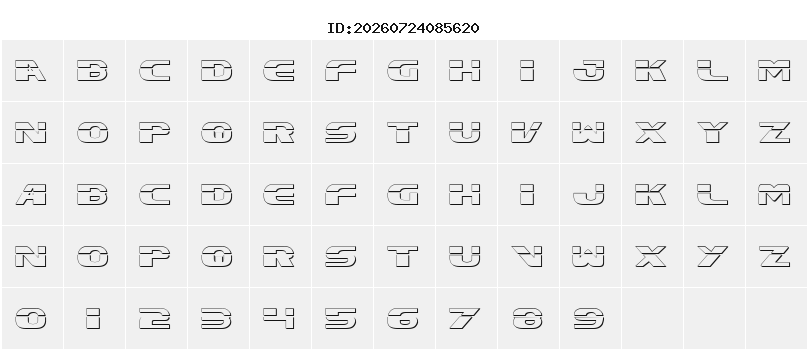
Excelsior Laser Outline Preview
• Font Name: Excelsior Laser Outline
• Font Style: Outline
• Font ID: Excelsior
• Full Font Name: Excelsior Laser Outline
About Excelsior Laser Outline.ttf
Excelsior Laser Outline.ttf is a modern, elegant sans-serif font designed for ultimate readability and visual harmony. Perfect for branding, headlines, web design, and print materials.